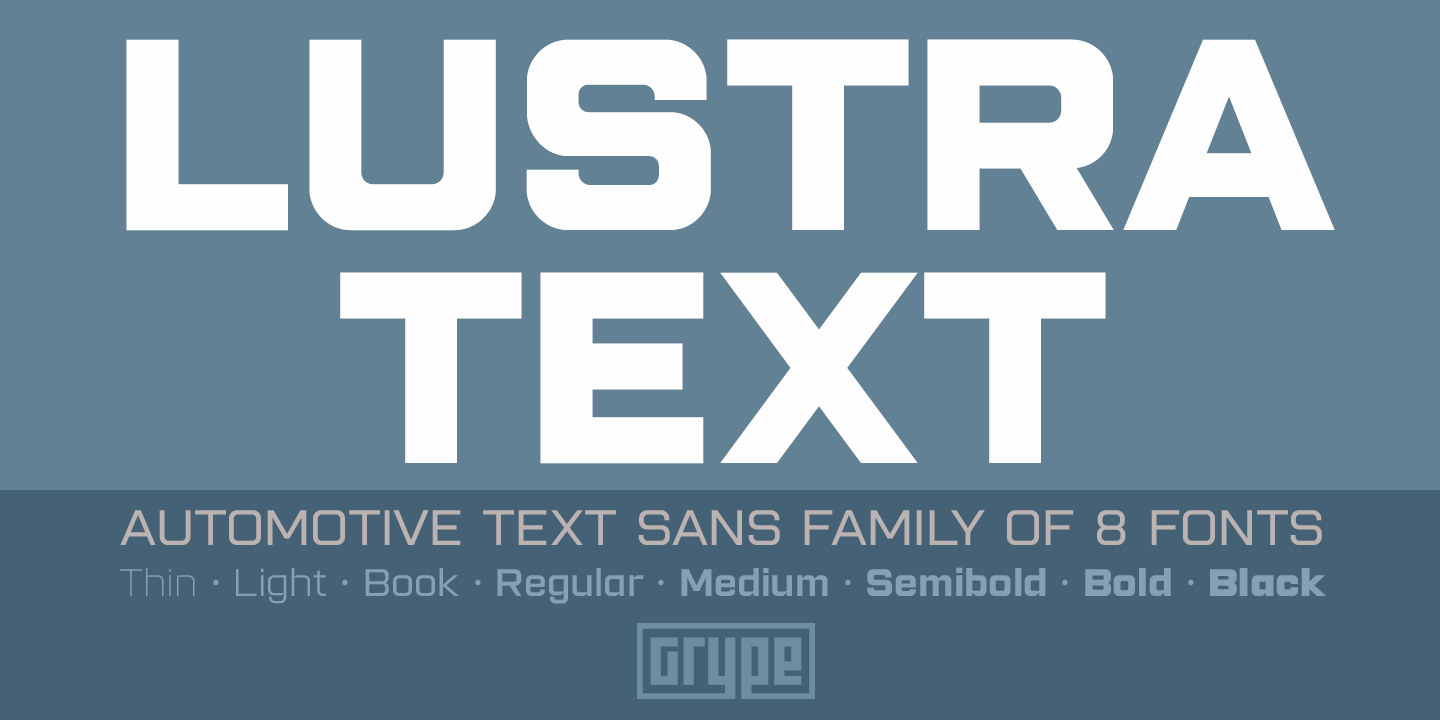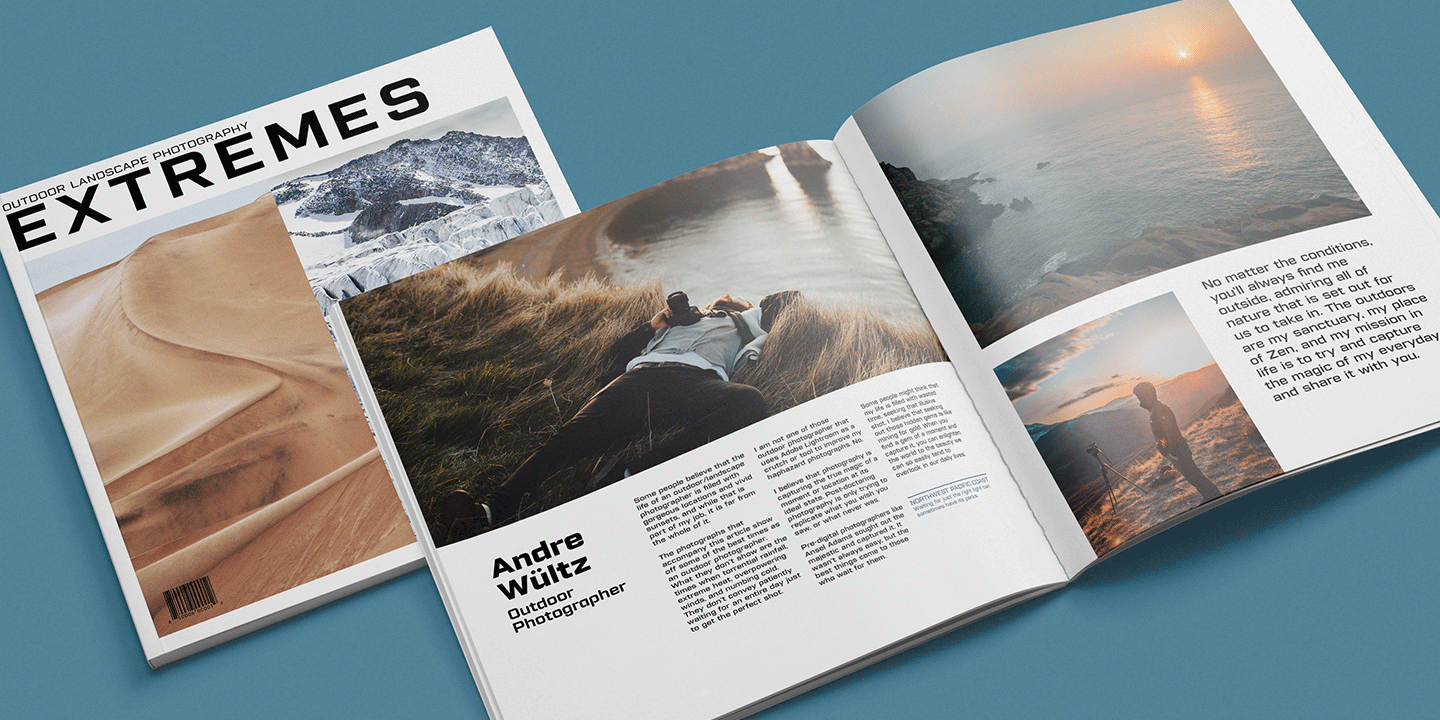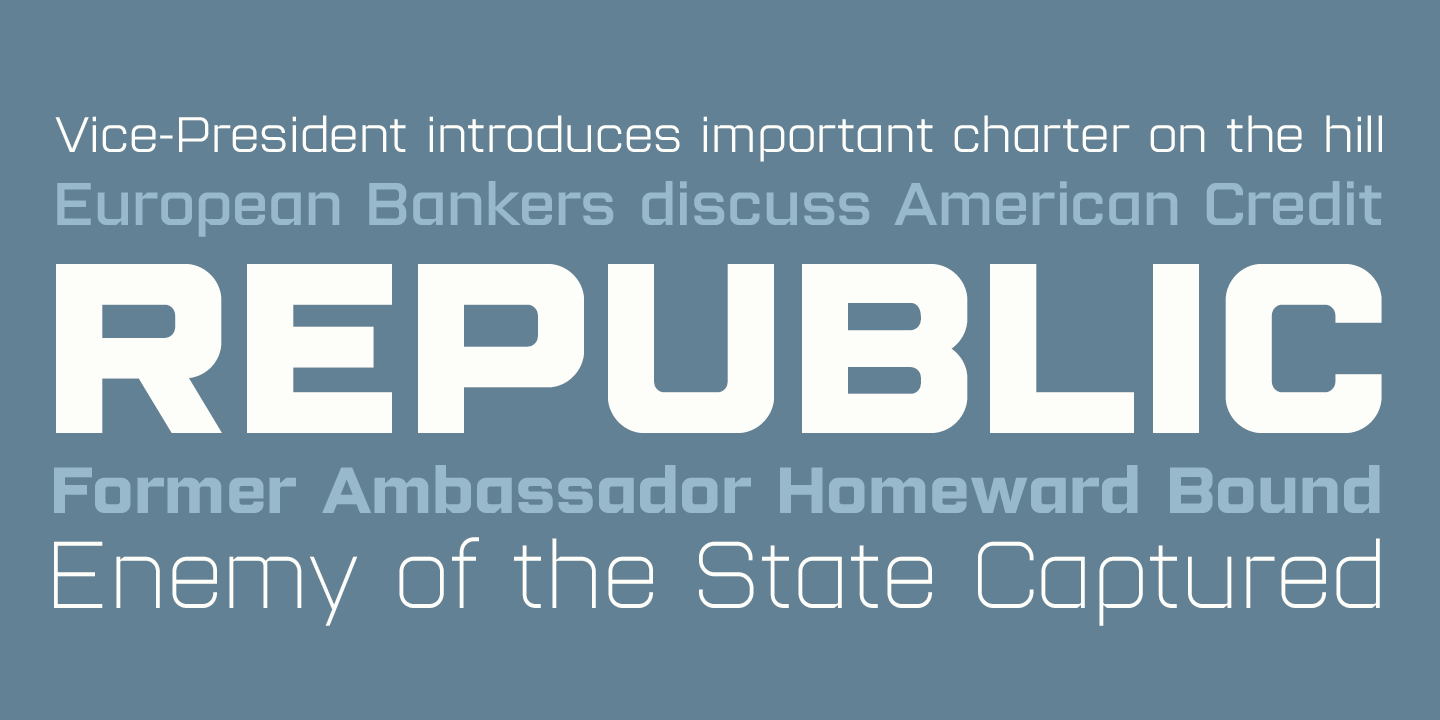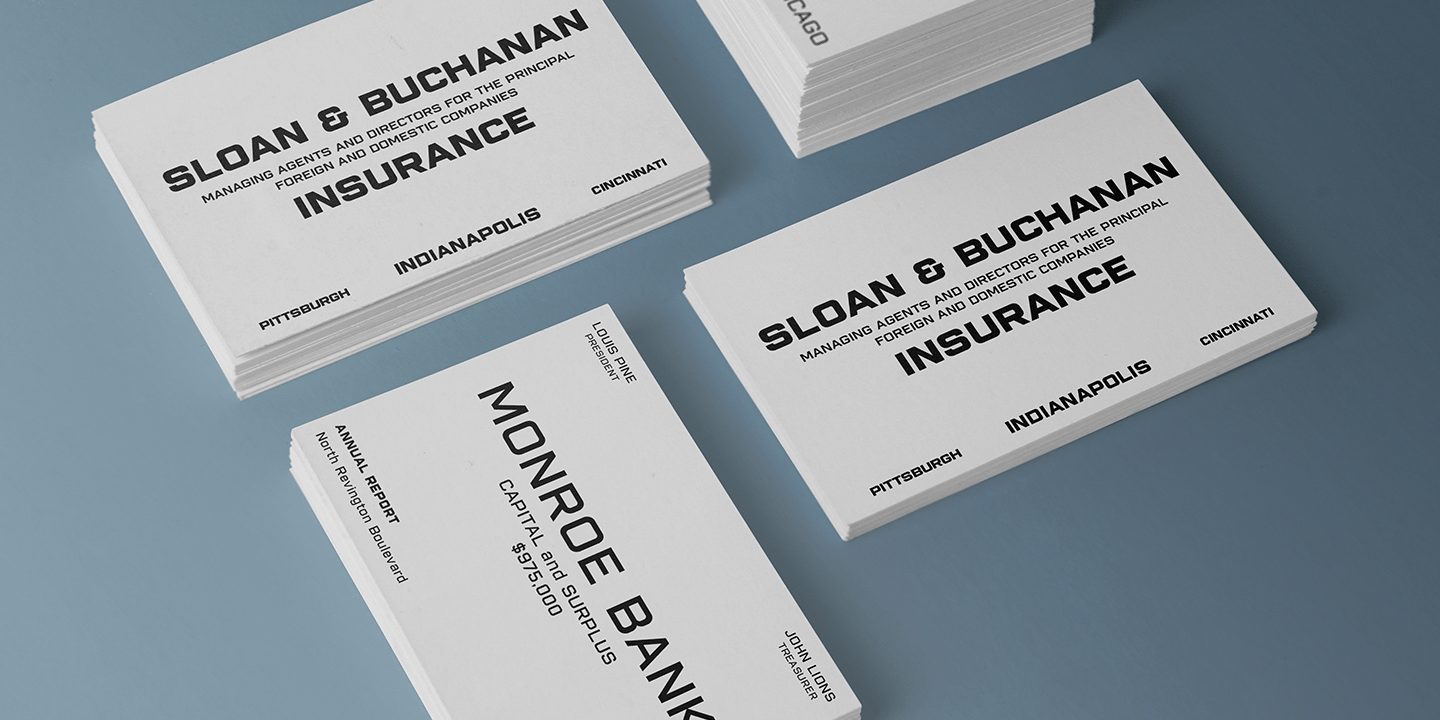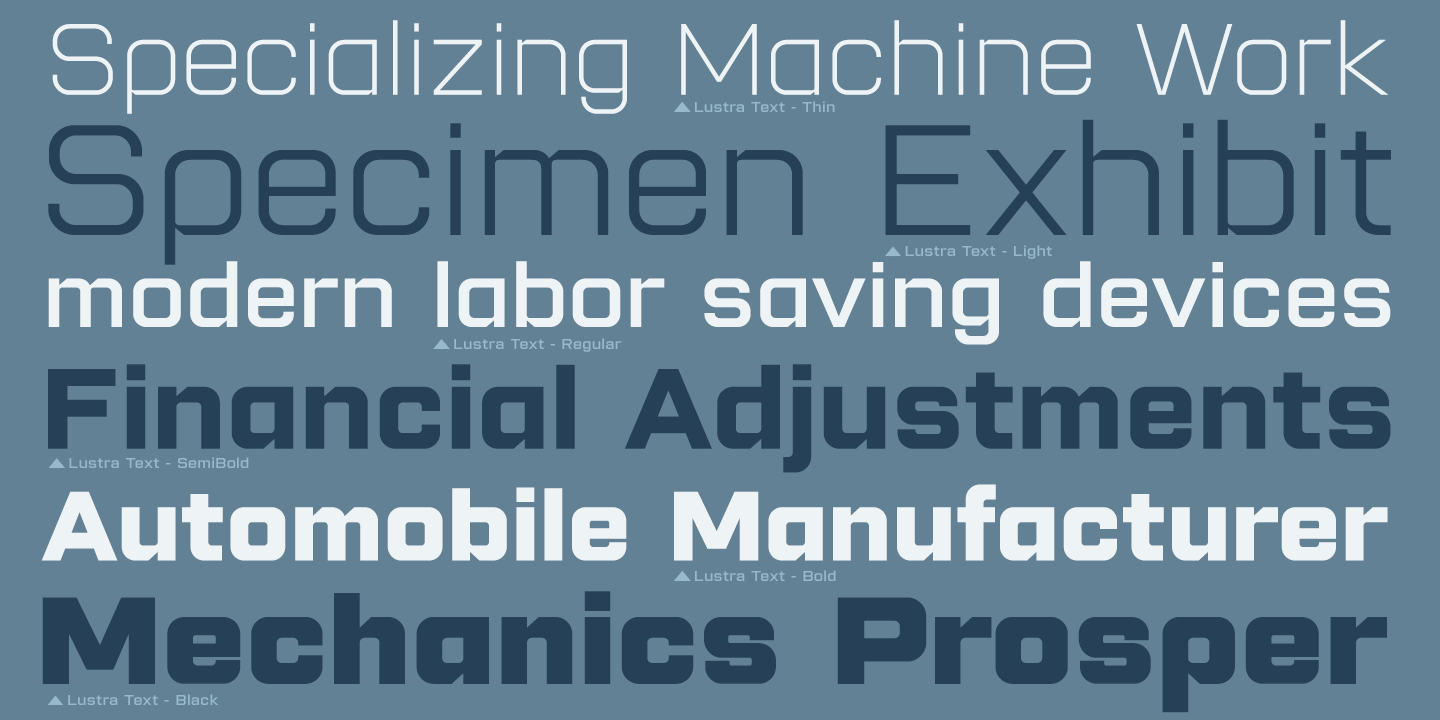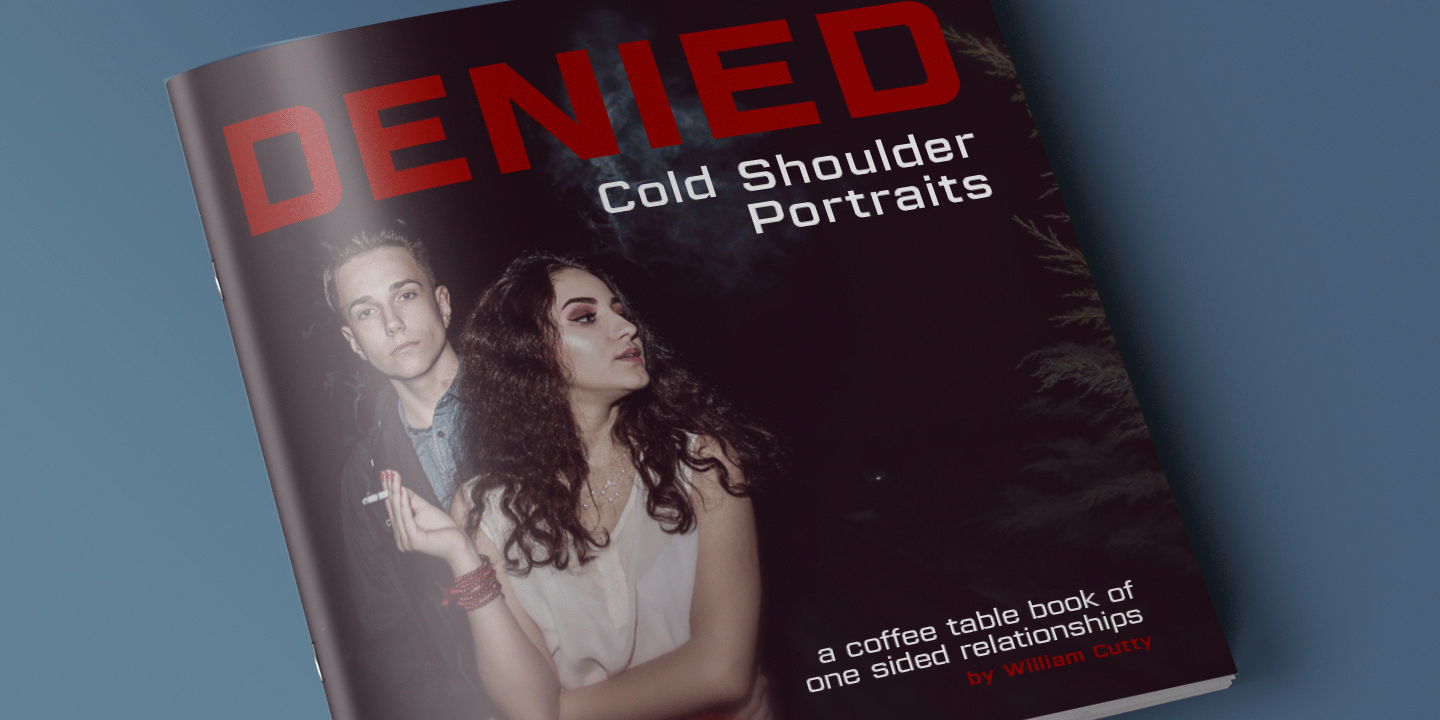
Lustra Text
The Lustra Text family is the next evolution of our Lustra Family, which finds its origin of inspiration in the HYUNDAI automotive company logo, and from there expands to an 8 font family of weights.
Lustra Text still nods its head to the techno display styling of the inspiration logotype, but evolves its brand inspired origin from a display to a text font family that pulls on modern and historical styles like Eurostyle and Bank Gothic. This text family inherits a sturdy yet approachable geometric style with its uniform stroke forms and curves, and includes a lowercase with a Stylistic Alternate for the lowercase "a", a numerals set, and a comprehensive range of weights. This is a straightforward, powerful, and uncompromising collection of typefaces that lend a solid foundation and a broad range of expression for designers.
392 glyphs per style - including Capitals, Lowercase, Numerals, Punctuation and an extensive character set that covers multilingual support of latin based languages. Stylistic Alternates: switch from the default one story "a" to a two-story "a".
8 weights in the family: Thin, Light, Book, Regular, Medium, SemiBold, Bold, & Black.